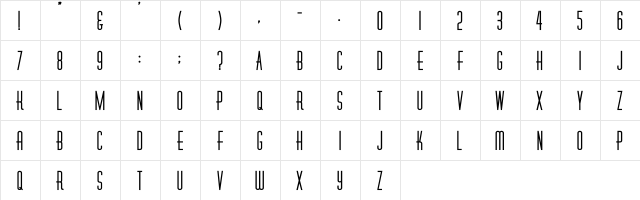
Diner-Fatt Regular
Design Context for Diner-Fatt Typeface
Diner-Fatt offers clean, dependable letterforms without strong stylistic allegiance, making it a practical choice for designers who need flexibility.
Pro Tip: Use Diner-Fatt in both headline and body roles to test its range before committing to a single application.